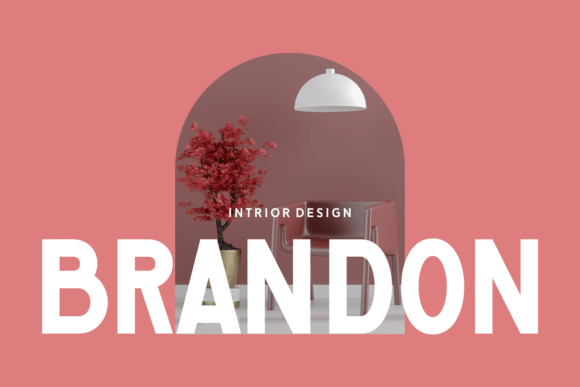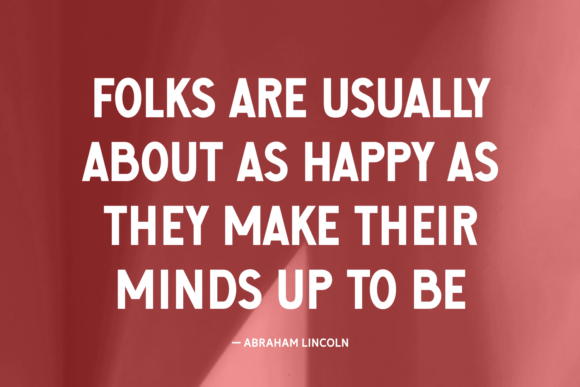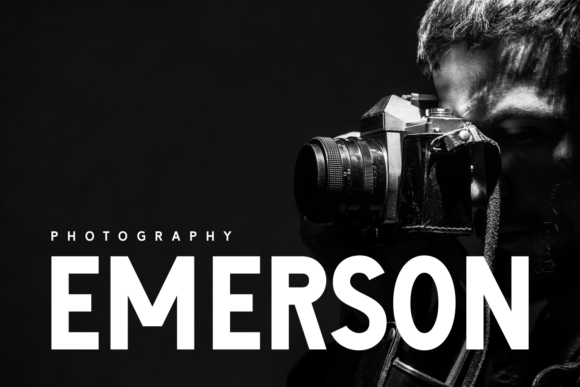
Introduction to Salient Points Font
Meet “Salient Points”, a fusion of elegance and modernity.
Gracefully designed as a Sans Serif font with a sleek touch, it is imminently adaptable, perfect for showcasing your artistic flair in photography, accents, and even apparel Its authentic nature makes it a star in book cover designs while still being a practical choice for body text within the books themselves.
Key Features of Salient Points Font